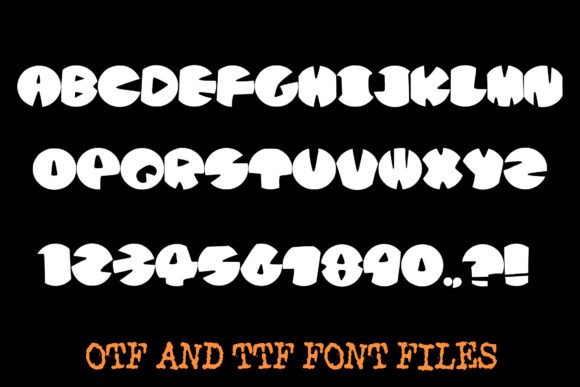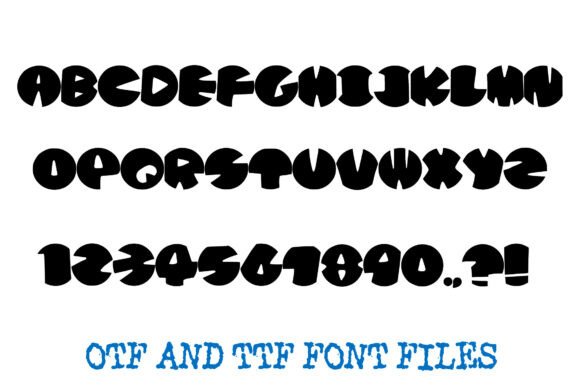
Unlocking the Future with Sci-fi Chunk Font
Have you ever stared at a blank canvas, trying to conjure up the perfect design to capture the essence of a futuristic world? For designers, this moment of creative uncertainty can be both thrilling and daunting. The right font can make all the difference, transporting your audience to a realm of limitless possibility. That’s where the Sci-fi Chunk Font comes in – a game-changing design resource that’s about to revolutionize the way you think about typography.
This bold and futuristic display typeface is not just a pretty face; it’s a powerful tool that can elevate your creative projects to new heights. With its unique cutout style and chunky geometric letters, the Sci-fi Chunk Font is perfect for posters, game titles, tech logos, album covers, and any other project that needs a strong sci-fi vibe.
Key Features of Sci-fi Chunk Font
- Unique, futuristic design suitable for creative projects and sci-fi themed designs.
- High-resolution font with a clear, legible design, suitable for use in various design applications, from print to digital media.
Honest Review: Sci-fi Chunk Font
I recently had the chance to work with the Sci-fi Chunk Font and I must say, it’s been a game-changer for my creative projects. The font is a high-quality design resource that adds a touch of futuristic flair to any layout.
Here’s what works well:
- ✨ The Sci-fi Chunk Font is highly customizable, making it perfect for designers who want to add a unique touch to their projects.
- ⚠️ The font may not be suitable for all types of projects, particularly those that require a more minimalist or elegant aesthetic.
- ⚠️ Some users may find the font to be too bold or overwhelming, so it’s essential to use it in moderation.
Overall, I’m impressed with the Sci-fi Chunk Font and would highly recommend it to designers who are looking for a unique and high-quality design resource. With its free download and transparent background, it’s an excellent option for any creative project.
The Sci-fi Chunk Font is perfect for:
1. Science fiction movie posters and trailers.
2. Space-themed video games and apps.
3. Futuristic website designs and landing pages.